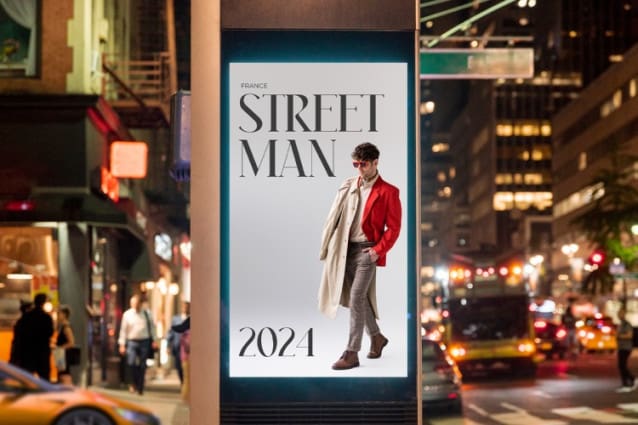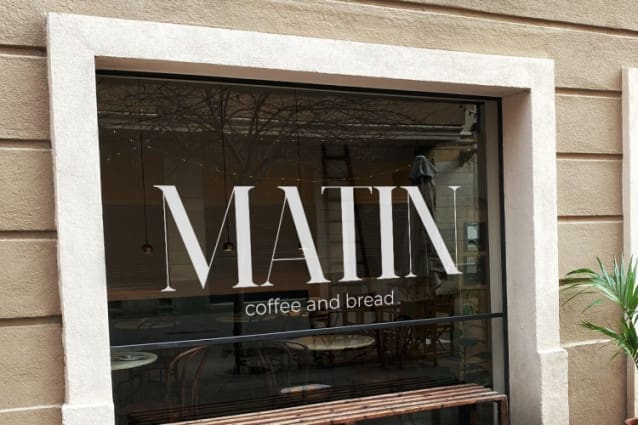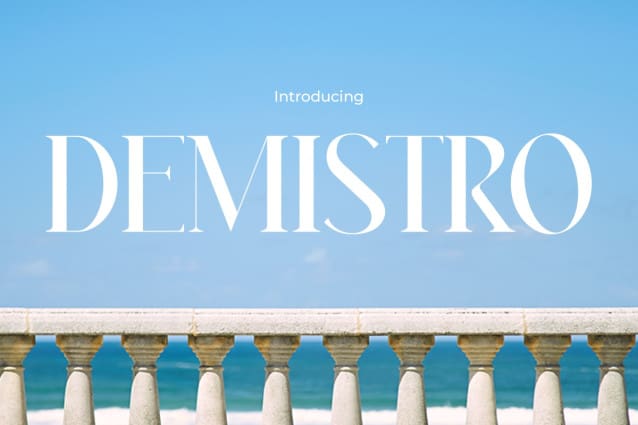
Demisto Font
Demisto Font – Redefining Elegance with Modern Sophistication. With unparalleled grandeur and distinctive charm, Font Demisto is the perfect choice to create an elegant and modern impression in your designs. Each letter is meticulously crafted, offering a harmonious blend of classic sophistication and contemporary beauty. Its flowing typography and balanced proportions exude undeniable luxury, making it an ideal choice for premium brands and designs that seek to stand out with their uniqueness.
Demisto Font not only offers elegance but also provides a captivating contemporary allure to every observer. With clean lines and strong characters, this font is suitable for various applications ranging from branding to marketing materials. The inherent beauty of each character adds aesthetic appeal to your designs, helping your brand to maintain a modern and stylish appearance. With Font Demisto, elegance and clarity converge in perfect harmony, delivering an unforgettable touch of luxury to every project you create.